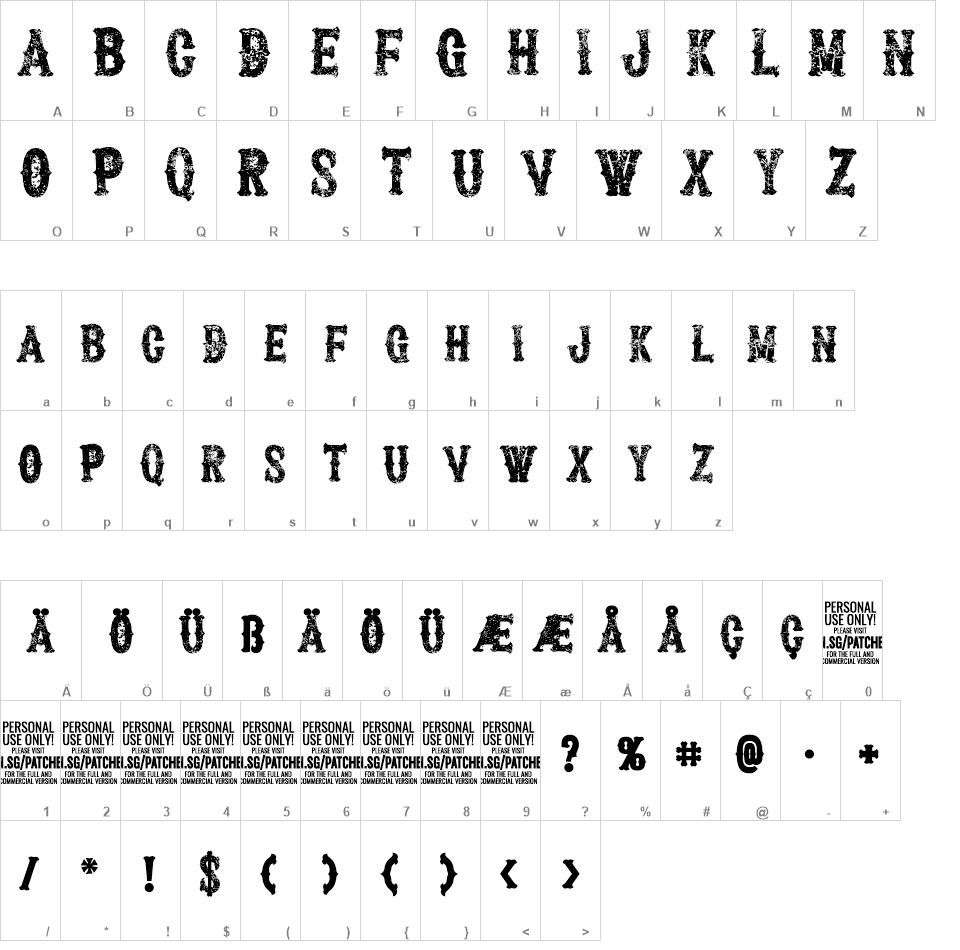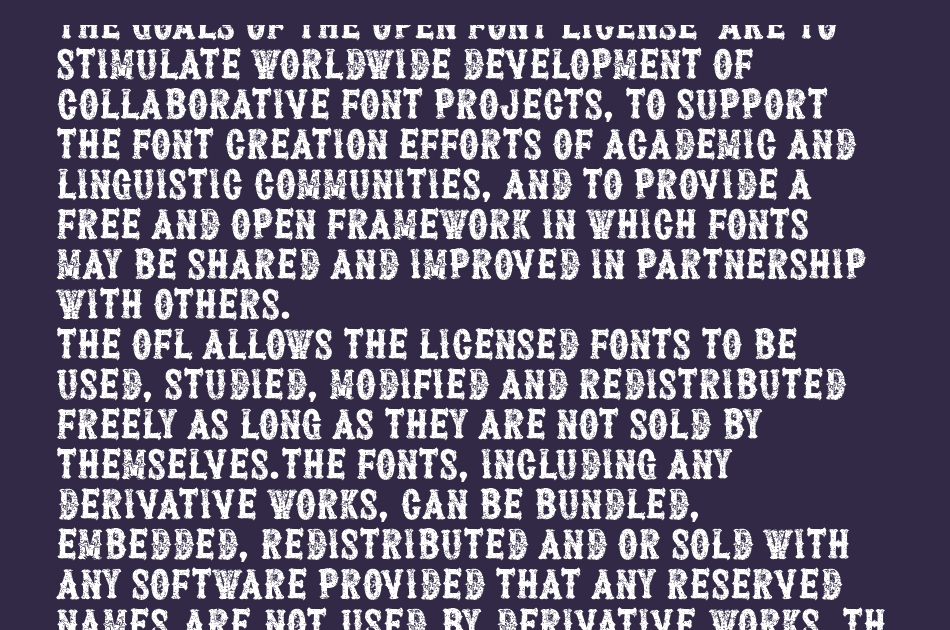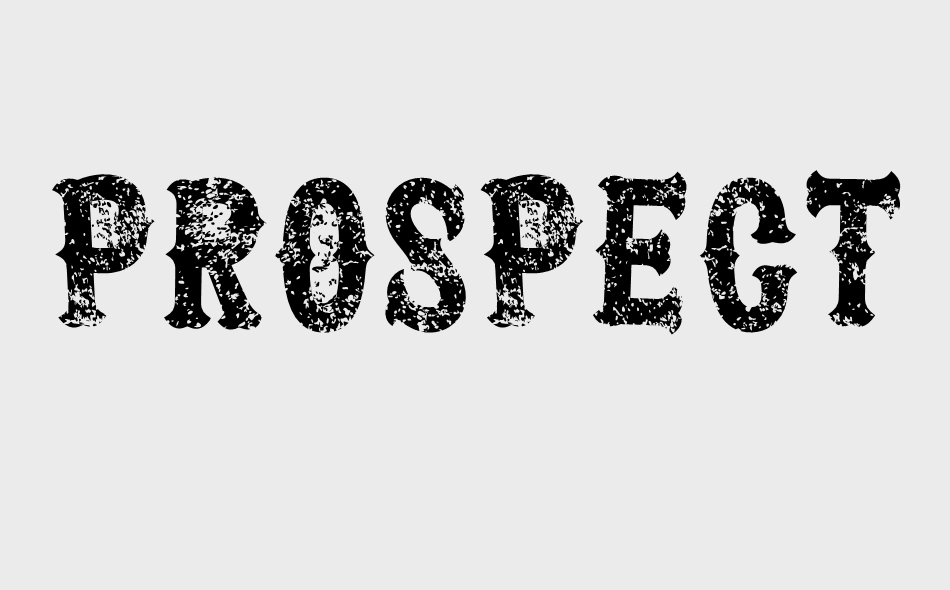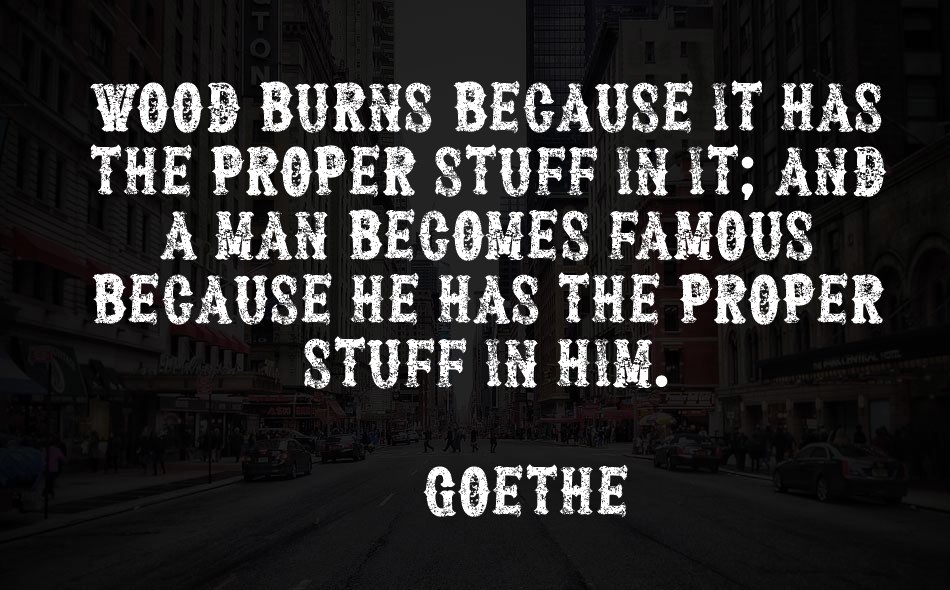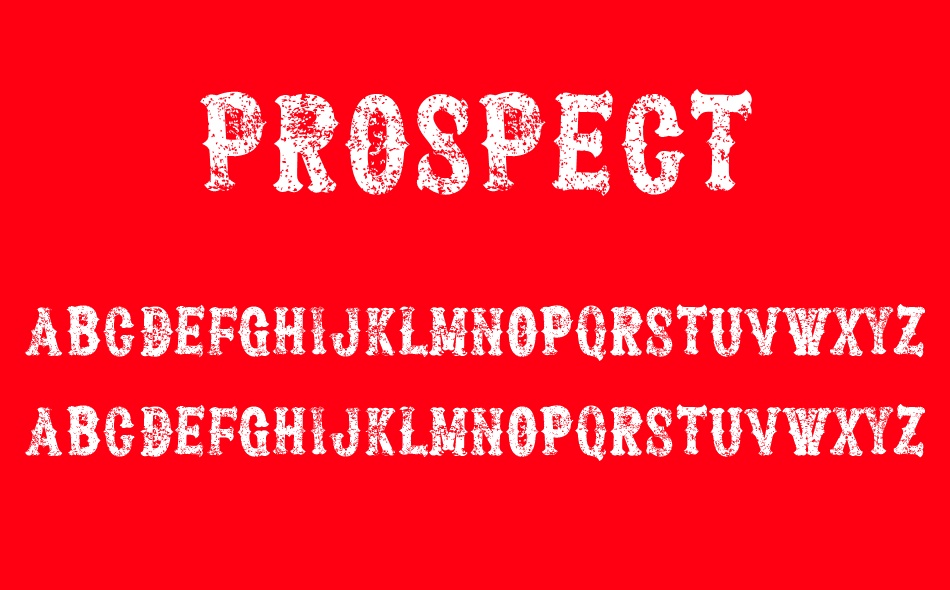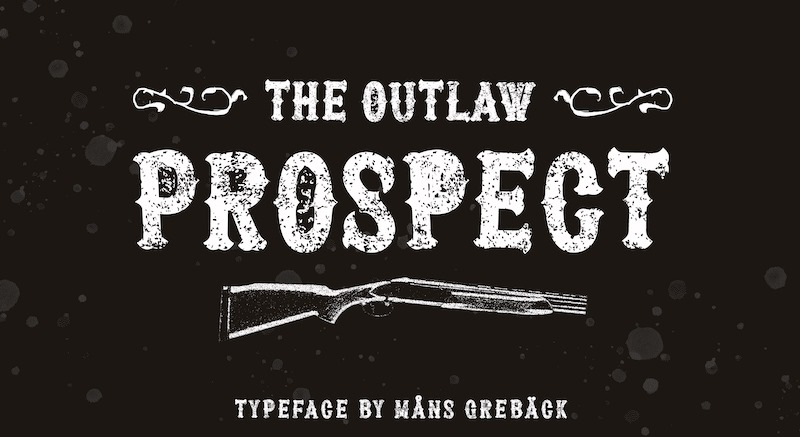
Patches is a multi-faceted, victorian-era serif typeface for when you need something more than plain text. Get that extra attention while adding a genuine, original appearance to your message.
Patches was designed from scratch to give a sense quality and depth. Its designer Mans Greback has created a typeface with a complex structure, yet one that will be easy to master. This work will suit every style, taste and skill level. It is a decorative and completely hand-drawn design in vintage lettering, with the perks and flexibility of present-day technology, which is exactly what you'd expect from a modern typeface.
Whether you are making a decorative floral headline, drawing a cowboy logo, or creating a unique design based on this ornamental font, the hopes are that Patches can give you a set of tools and inspiration to bring out the best of your artistry. Standing on the shoulders of giants, it was inspired by a wide range of works, and will hopefully be able to continue to teach and inspire future artists. Or at least help you become a better designer when you're designing an elegant and classic headline.
Set the coloring of Patches to light gold and cream tones to apply a luxurious look, or in dark tones for a more rugged impression. Bold, bright colors will make it appear
In the mid-1800s, decorative design flourished in the Western major cities. Victorian style thrived and encouraged techniques such as enamelling, embroidery and calligraphy. From the 1880s onwards, there were a series of reactions to higher Victorian tastes, with Art Deco reaching the heights of the 20th century. However, the Victorian art persisted popularity, as it changed to more sophisticated designs which made it more attractive to specific professions and groups.
The evolution of the Victorian style in the mid-20th century was a key factor in the succession of the movement. Classic shops and salons, sport designs and traditional festivals, and later Rock'n'Roll and Harley Davidson-themed graphics ?inspired the continued development of the art.
Aspiring to carry on this tradition, this typeface family consists twelve different high-quality variations. The main ones are Patched and Patched In – an outlined variation – and each one provided in five weights: Thin, Light, Medium, Bold and Black. Additionally, the two rough fonts Hangaround and Prospects, that tries to grasp the rough, earthy atmosphere of a shady motorcycle club.
The font is built with advanced OpenType functionality and has a guaranteed top-notch quality, containing stylistic and contextual alternates, ligatures and more features; all to give you full control and customizability.
It has extensive lingual support, covering all Latin-based languages, from North Europa to South Africa, from America to South-East Asia. It contains all characters and symbols you'll ever need, including all punctuation and numbers.